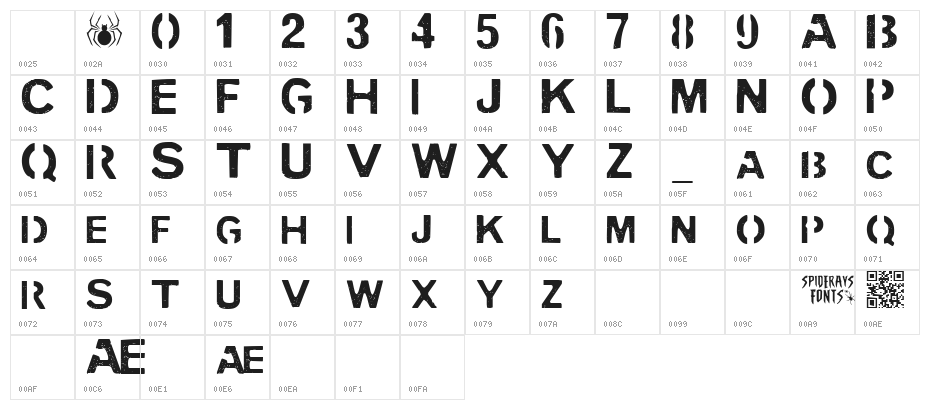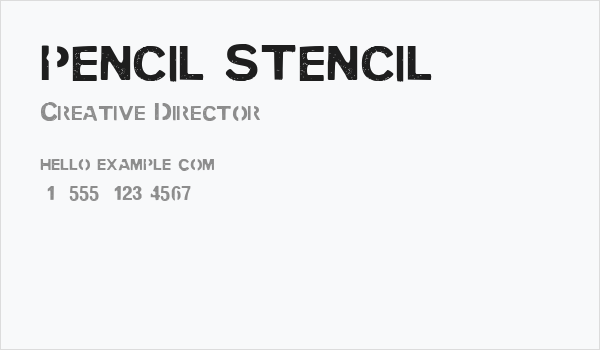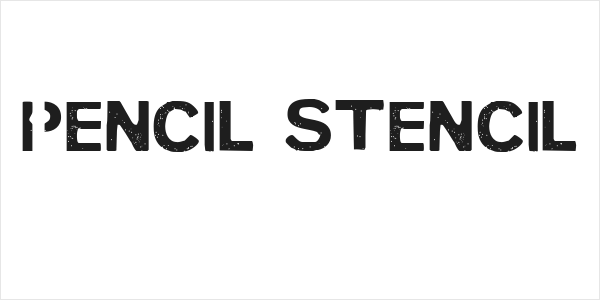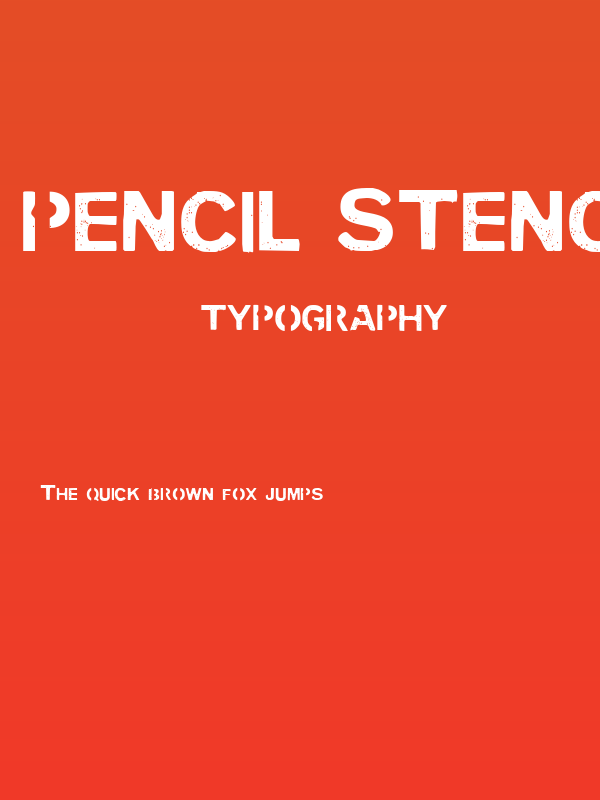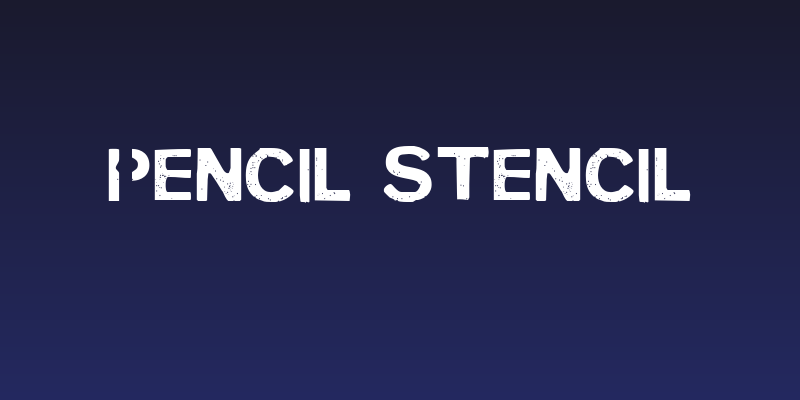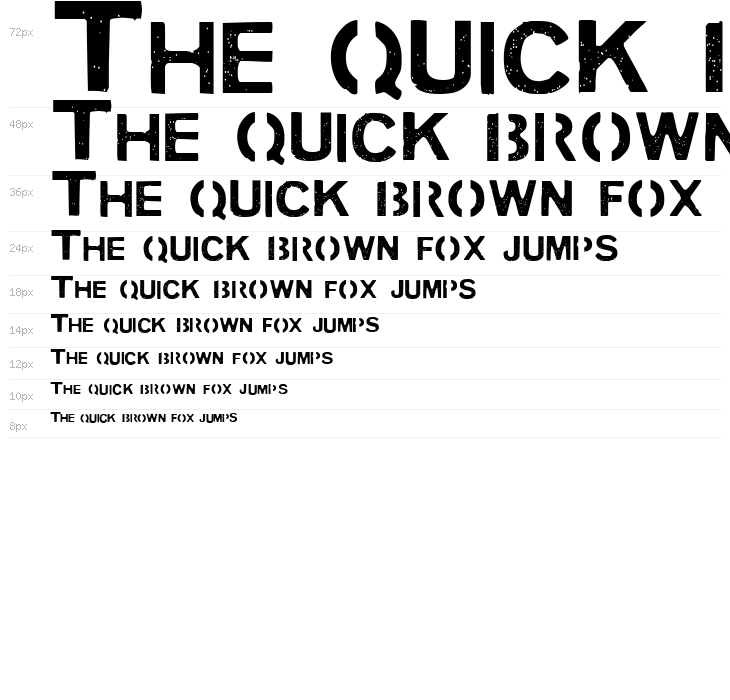
PENCIL STENCIL Font
PENCIL STENCIL Description
This font features a bold, stencil-like design with a distressed texture, giving it a rugged and industrial feel. The uppercase letters are uniformly bold, with sharp angles and clean lines, while the numbers maintain the same robust style. The font's unique characteristic is its weathered appearance, which adds a vintage or grunge aesthetic. The spacing between characters is relatively tight, enhancing its compact and impactful look. This font is ideal for projects that require a strong, eye-catching display, such as posters, logos, or branding materials that aim to convey strength and durability.
| Proposed Projects | Ideal for posters, logos, branding, and any design requiring a strong, vintage aesthetic. |